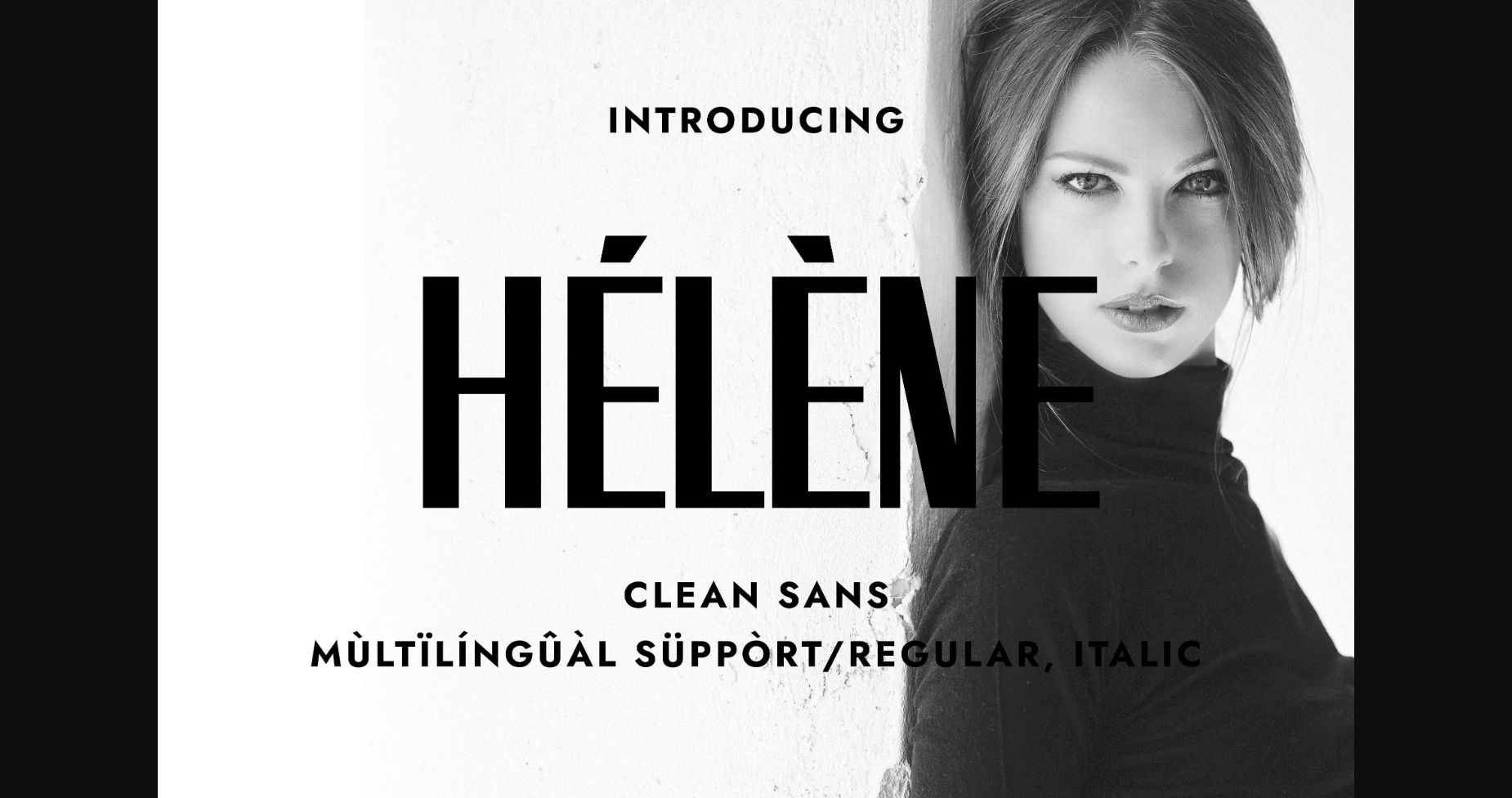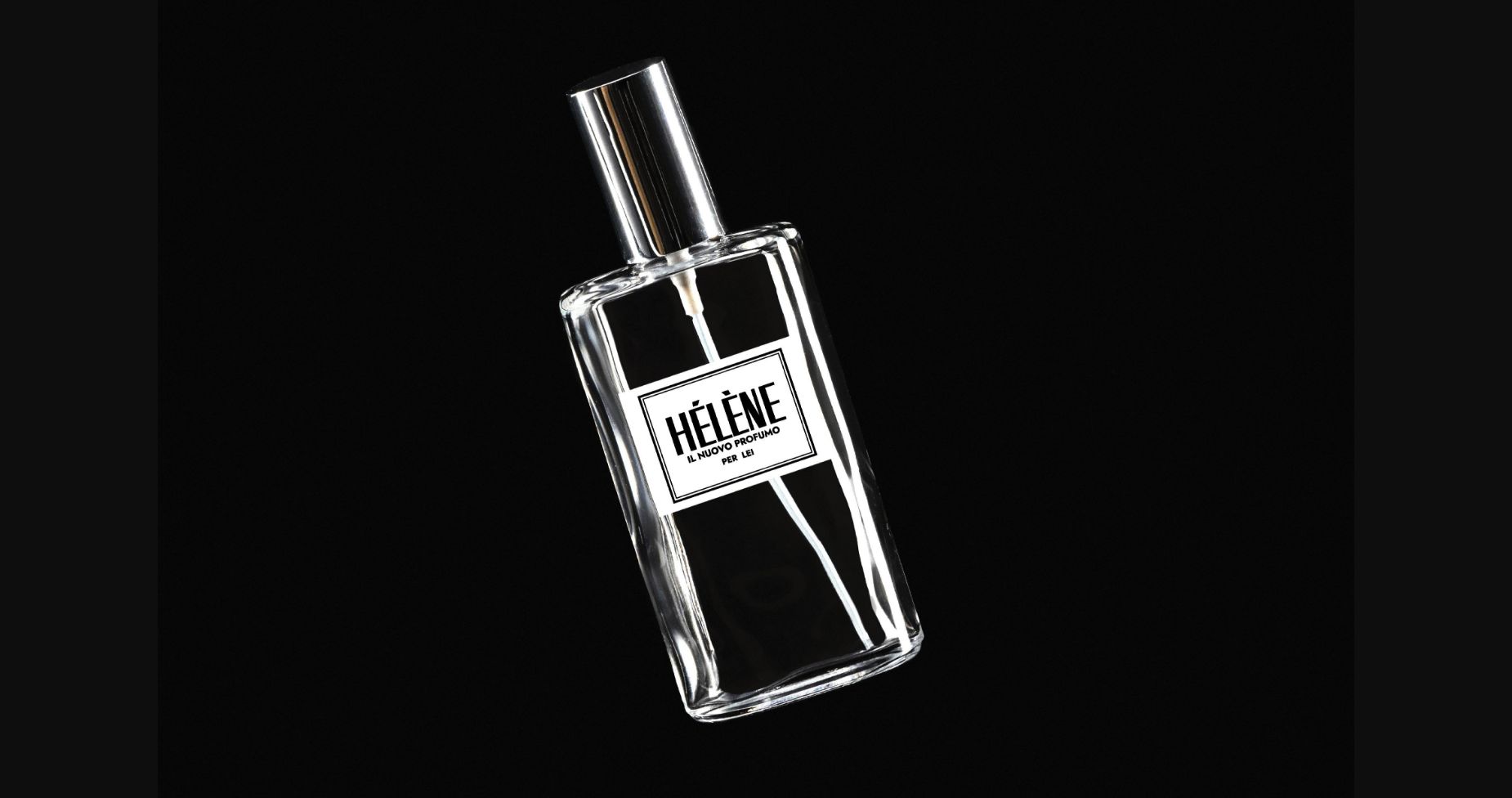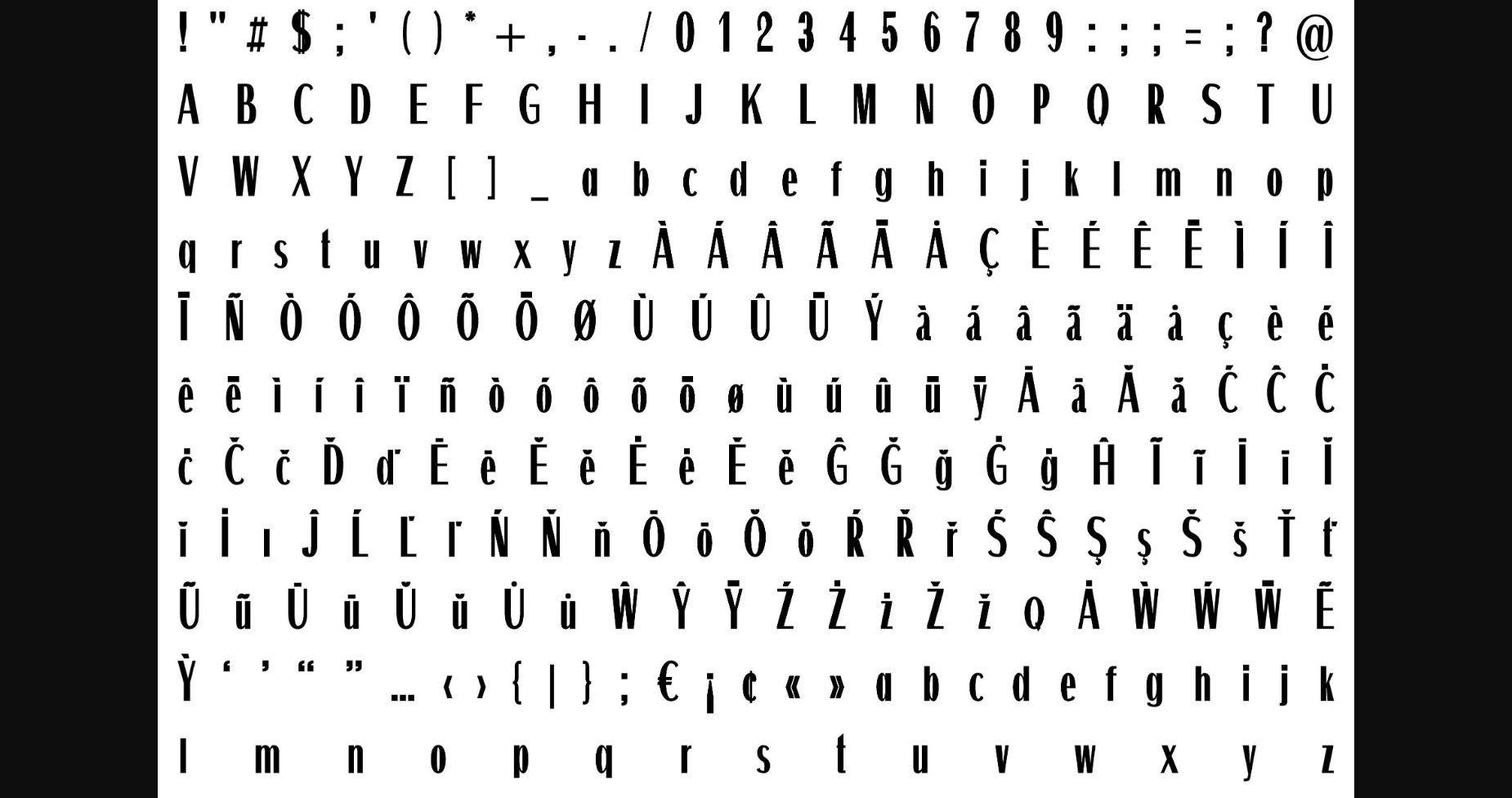
HomeSans Serif FontsHélène Font Sans Serif Fonts Hélène Font FacebookXPinterestWhatsApp 1 of 5 ... Hélène Font Poster 2... Hélène Font Poster 3... Hélène Font Poster 4... Hélène Font Poster 5... About Hélène Font Hélène is a modern, tall, and minimalist clean sans serif typeface. Contemporary and fresh, it is perfect for any design you wish to create. Add it to your creative projects and make them outstanding! DOWNLOAD NOW People also explored Groovy Grunge Snowy Font Lovely Month Font Clover Grotesk Font Naibacarte Font Boutiera Griphones Font Recone Font Rising Font Some Font 340 0 TagsHélèneHélène Font Previous articleWived Onyx FontNext articleToonpin Font LEAVE A REPLY Cancel reply Comment: Please enter your comment! Name:* Please enter your name here Email:* You have entered an incorrect email address! Please enter your email address here Website: Save my name, email, and website in this browser for the next time I comment. Personal Use Free Love Baby Personal Use Free Read more about this font Bamboomoe Personal Use Free Read more about this font Pouline Personal Use Free Read more about this font Nuku Nuku Personal Use Free Read more about this font BLOG How to Cut Any Font on Cricut: Convert a Font to SVG (Free) Turn any font into a clean SVG so it cuts crisp on Cricut - a quick 3-step workflow using a free font-to-SVG tool. Top 10 Handwritten Fonts That Elevate Your Designs Transform Your Website: Elevate Your Typography with 7 Best Web Font Generators Elegant Wedding Invitation Fonts – Handwritten & Script Fonts